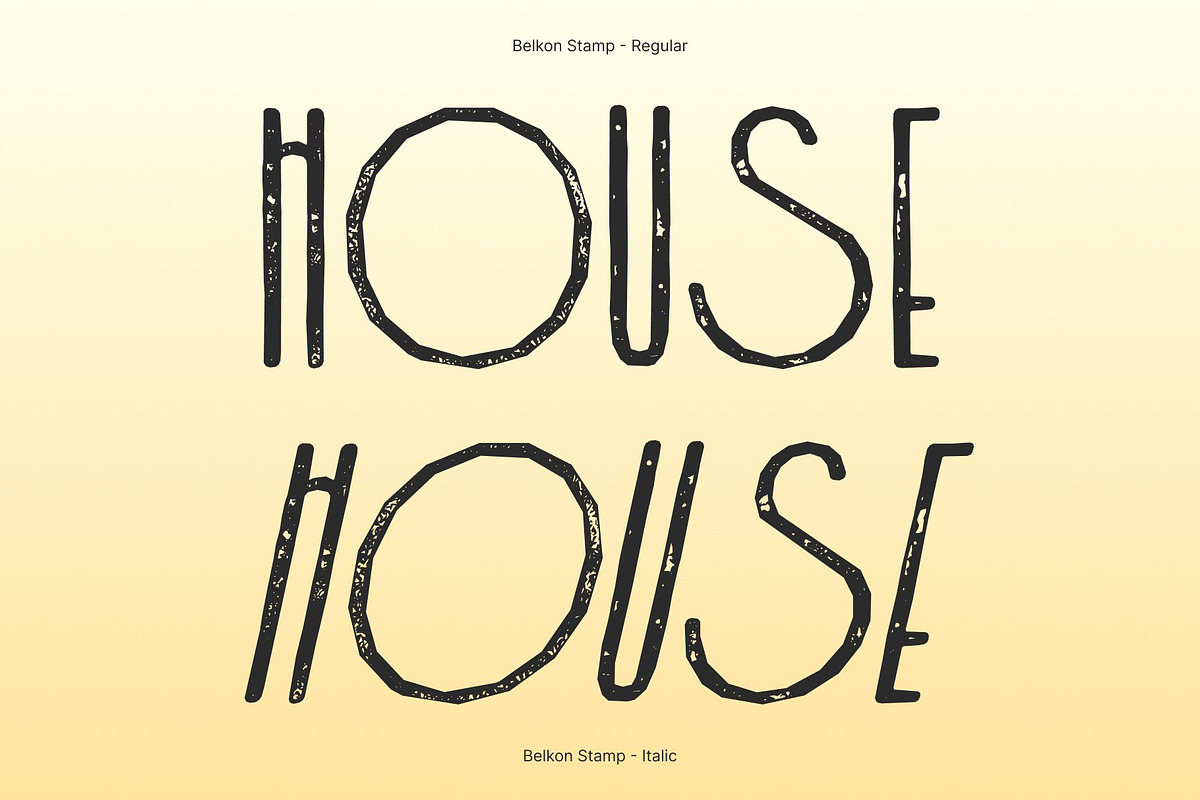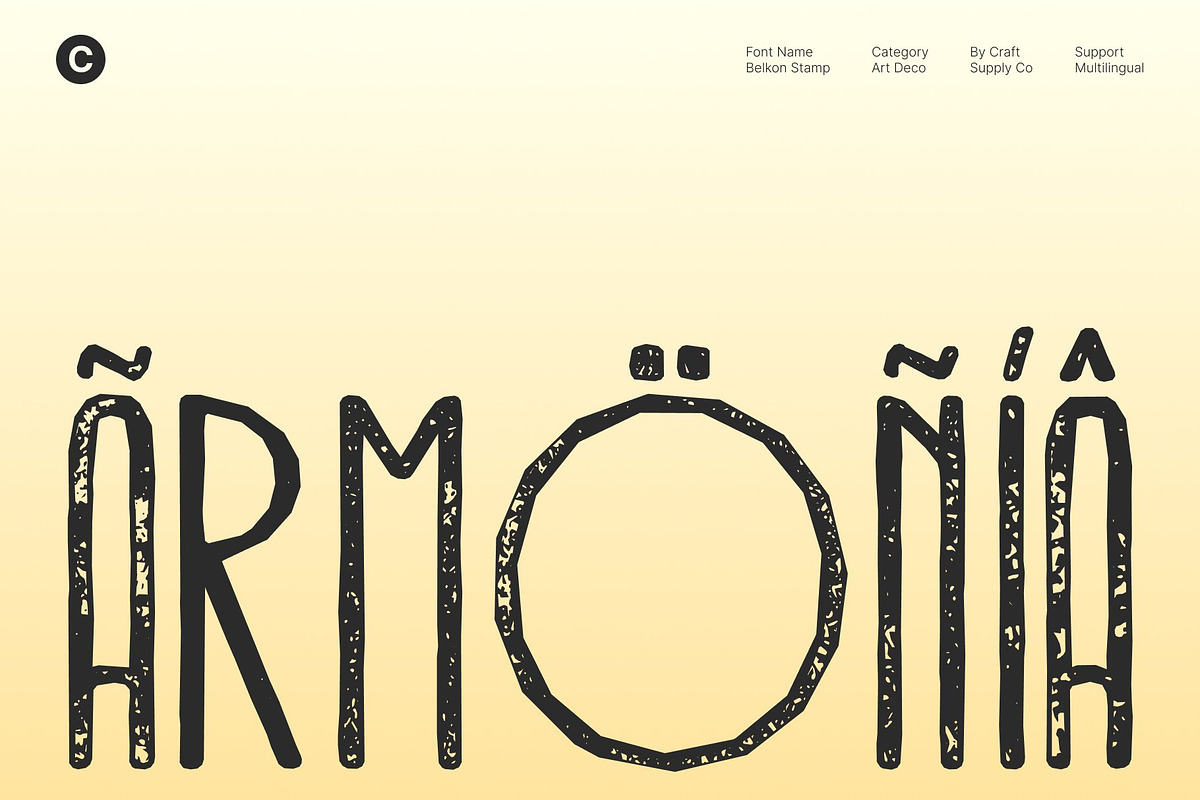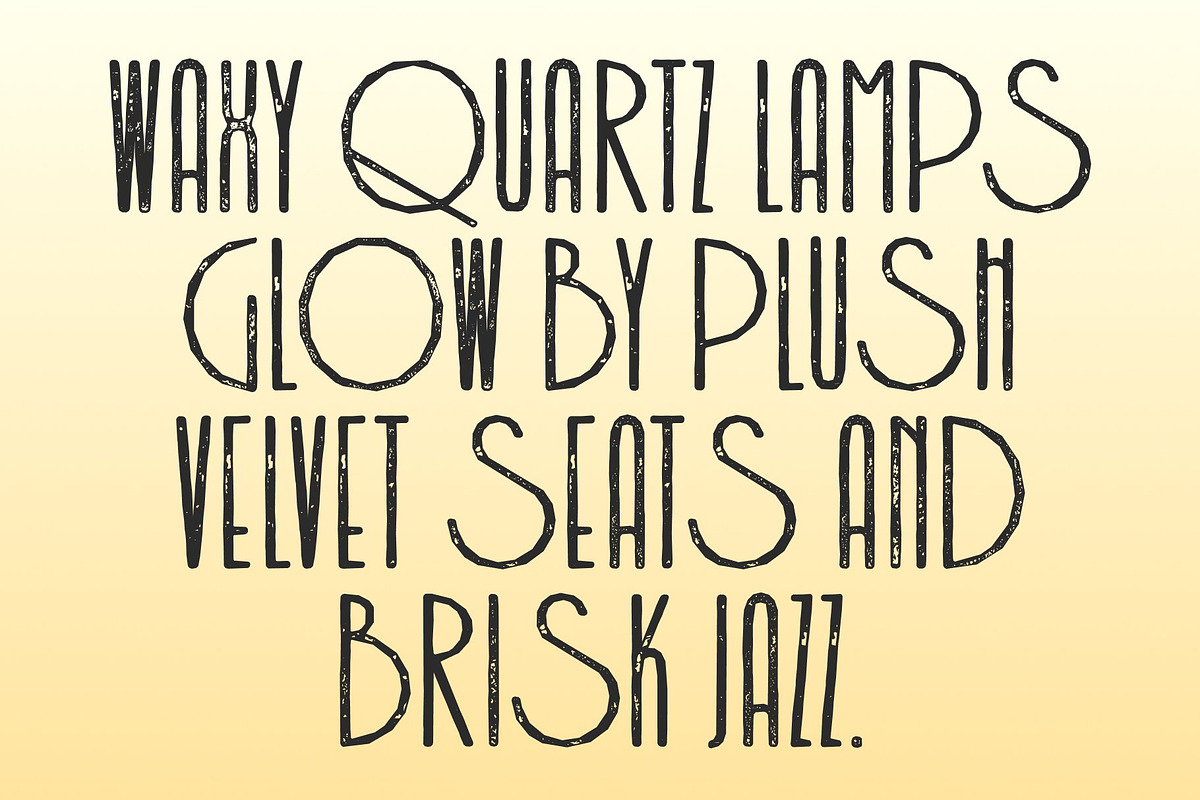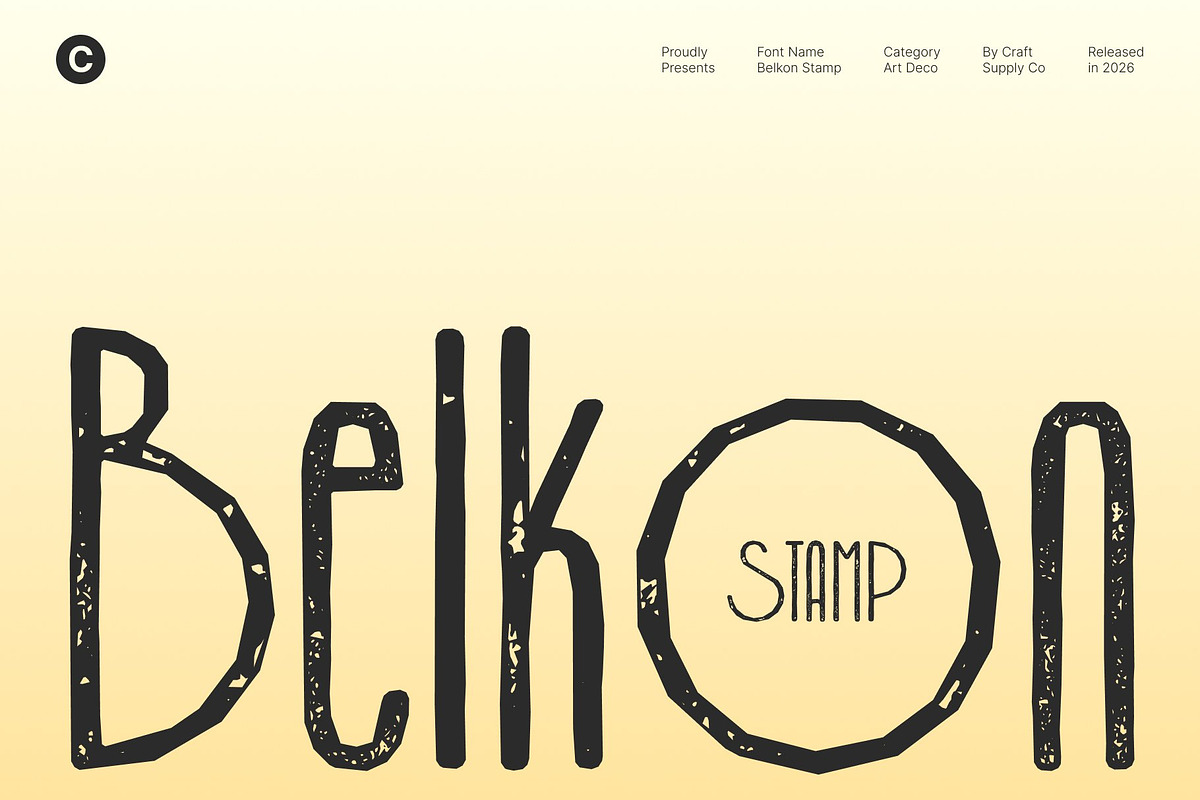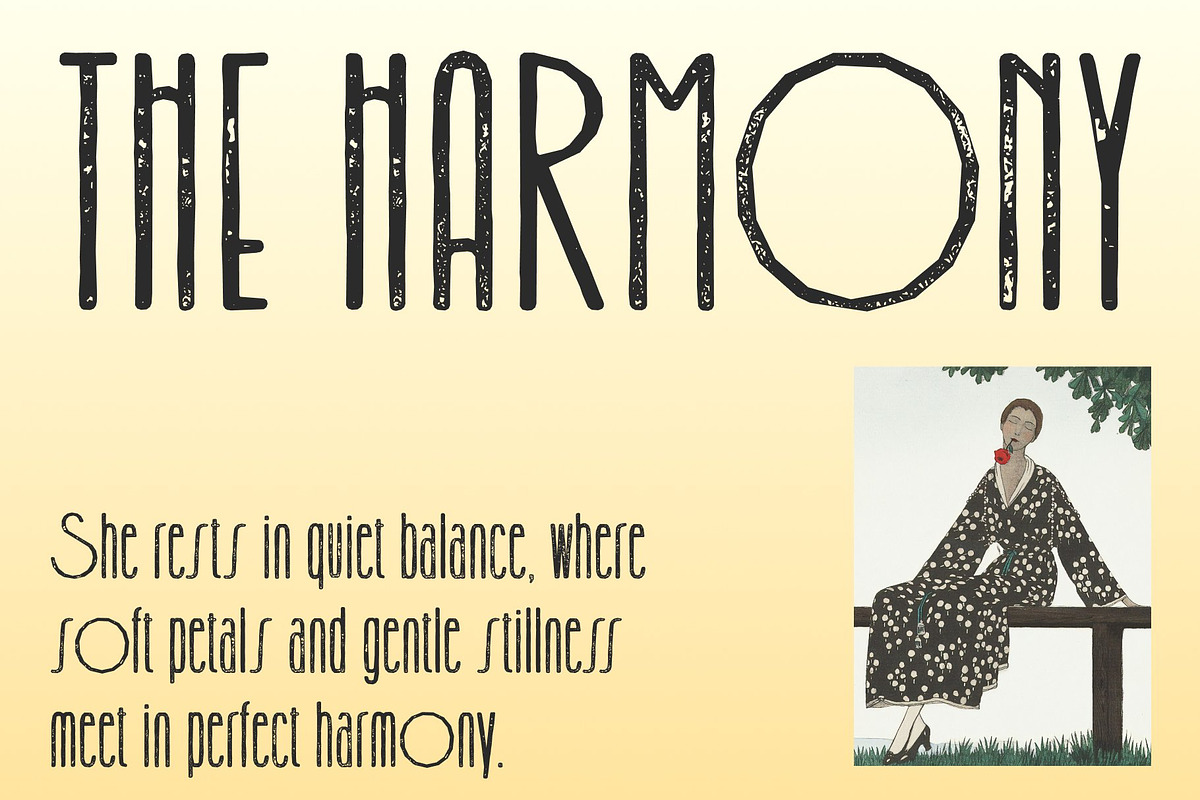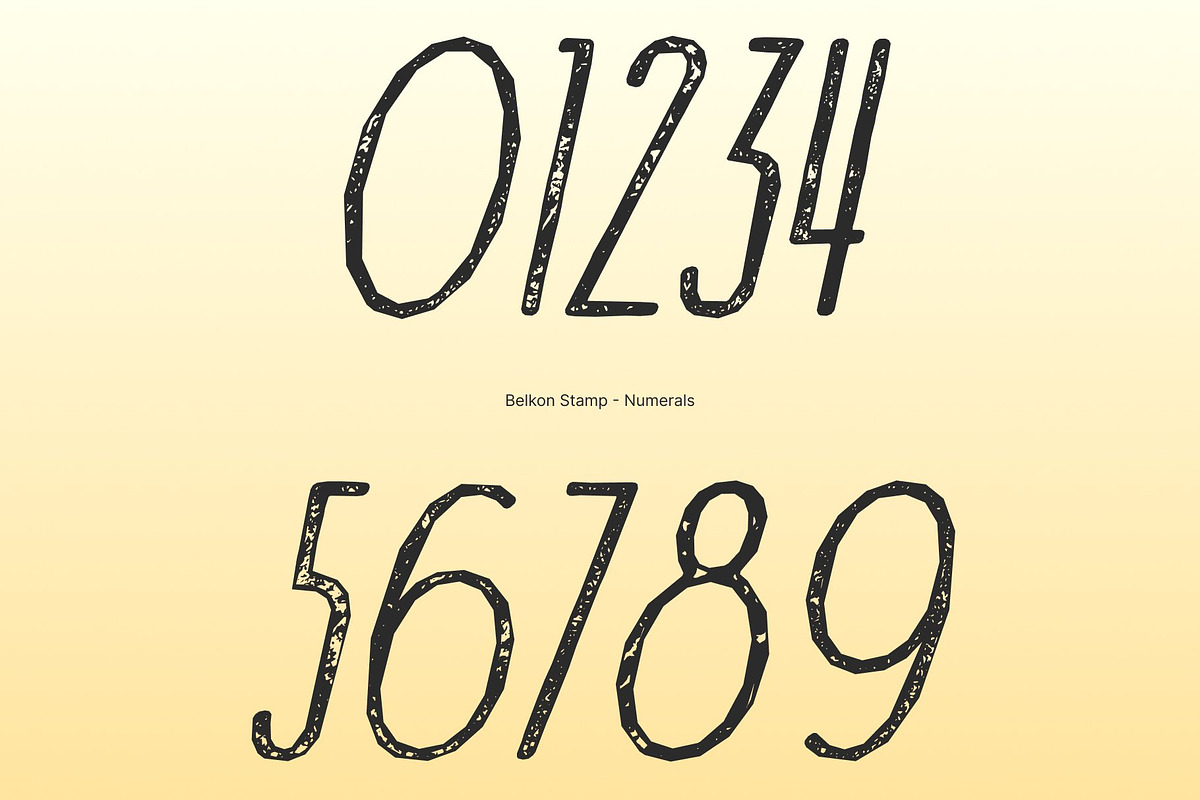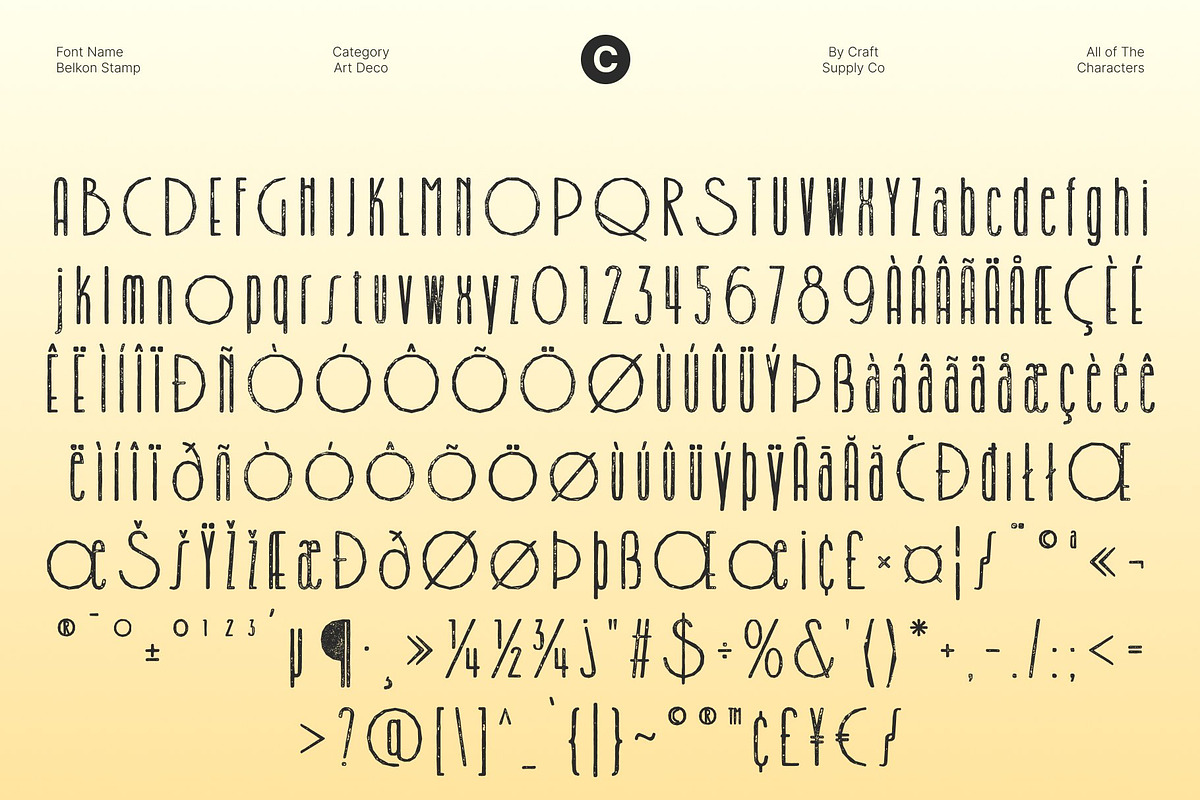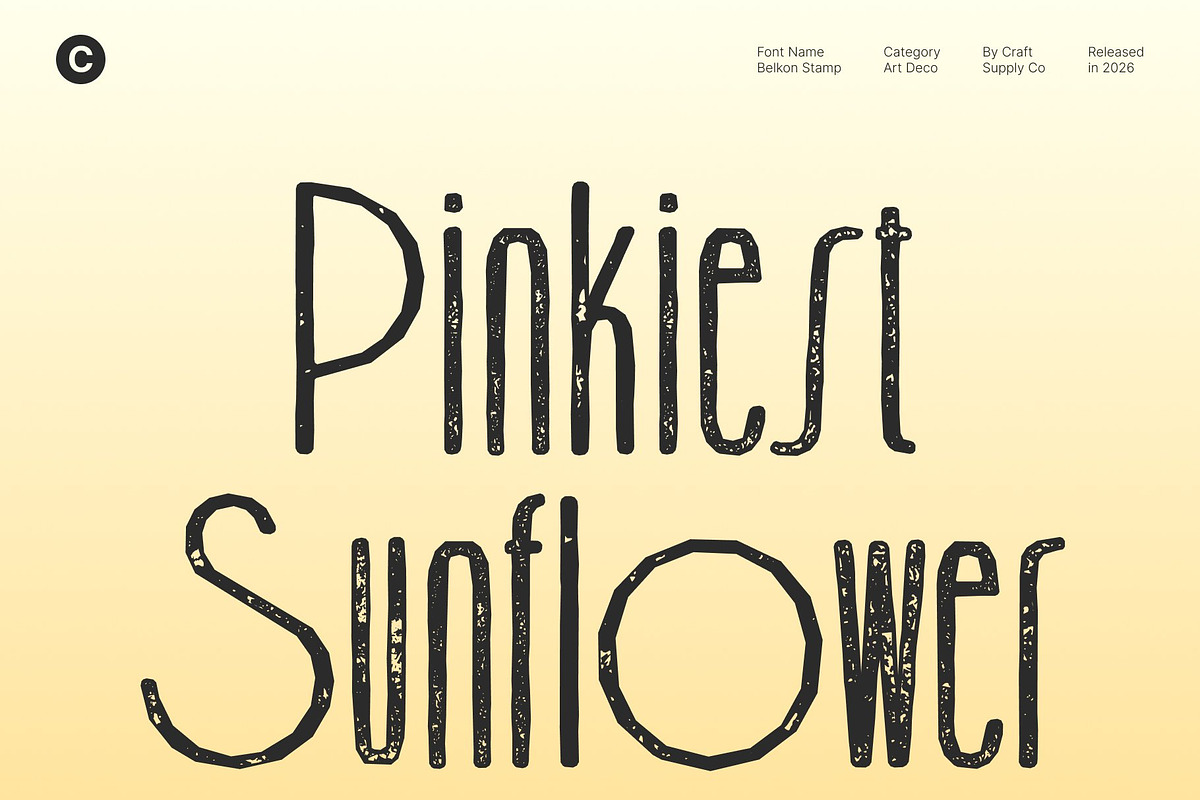
Belkon Stamp
Belkon Stamp – Art Deco Font: Modern Elegance with Vintage Imprint
Modern Sans Serif with Art Deco Influence This is a modern sans-serif typeface infused with the glamour and geometry of Art Deco design. Its sleek lines, balanced proportions, and refined symmetry pay homage to the elegance of the early 20th century. Enhanced with a subtle stamped texture, this version introduces a tactile, print-inspired character that adds warmth and authenticity to its modern structure.
Geometric Precision with Textured Charm The clean geometric forms remain sharp and sophisticated, while the stamped finish introduces soft ink variations and lightly distressed edges. This combination creates a harmonious balance between polished modernity and nostalgic craftsmanship evoking the charm of vintage posters, luxury packaging, and heritage branding.
Versatile, Stylish, and Captivating This font adapts seamlessly to headlines, editorial layouts, branding systems, websites, and promotional materials. Its Art Deco-inspired details provide distinctive flair, while the textured finish ensures visual richness and depth. The result is typography that feels refined yet expressive, classic yet contemporary.
Timeless Appeal for Statement Designs Perfect for posters, luxury branding, elegant packaging, and sophisticated digital designs, delivers enduring style with a unique stamped personality. By merging modern clarity with vintage Art Deco elegance, it ensures your projects feel captivating, stylish, and unforgettable.
Belkon Stamp Regular
Belkon Stamp Italic